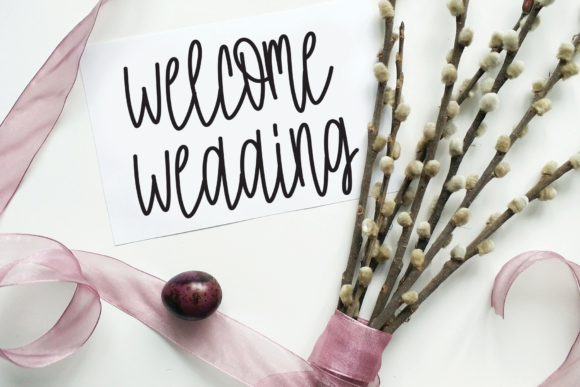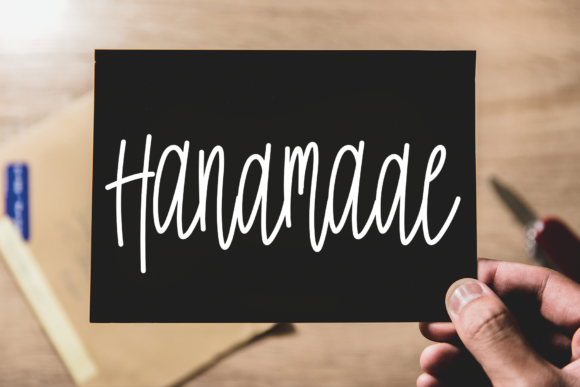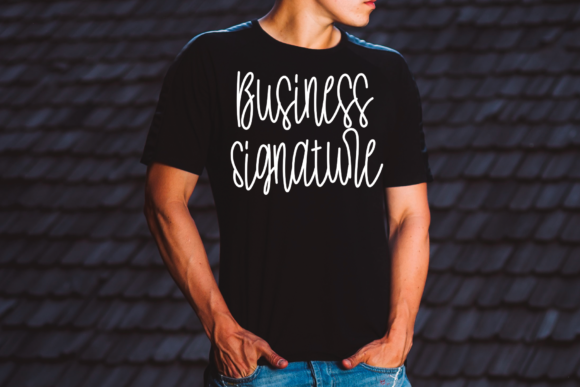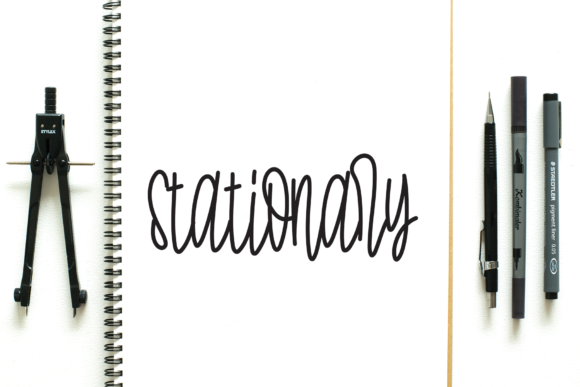
Introducing Handcraft Vintage Font: A Timeless Choice for Creative Projects
Are you a designer or crafter looking for a font that adds a personal touch to your creative projects? Look no further than Handcraft Vintage Font, a beautiful and slim handwritten font that exudes authenticity and natural charm. In this article, we’ll explore the features and benefits of Handcraft Vintage Font, and why it’s an excellent choice for anyone seeking to add a unique and vintage flair to their work.
The Charm of Handcraft Vintage Font
Handcraft Vintage Font is a stunning example of a handwritten font that looks like it was plucked straight from a bygone era. Its slim and elegant lines evoke a sense of nostalgia and sophistication, making it perfect for projects that require a touch of classic charm. Whether you’re working on a logo, branding materials, or a craft project, Handcraft Vintage Font is sure to impress with its authentic and natural appearance.
What Makes Handcraft Vintage Font So Special?
So, what sets Handcraft Vintage Font apart from other fonts? Here are just a few reasons why this font is a cut above the rest:
- Authentic look and feel: Handcraft Vintage Font has been carefully crafted to mimic the look and feel of vintage handwriting. Its imperfections and quirks add to its charm, making it look like it was written by hand.
- Slim and elegant lines: The font’s slim lines make it perfect for use in a variety of applications, from logos and headings to body text and crafts.
- Highly versatile: Handcraft Vintage Font is suitable for a wide range of creative projects, from stationery and invitations to branding and advertising materials.
- Easy to read: Despite its vintage charm, Handcraft Vintage Font is surprisingly easy to read, making it perfect for use in body text and other applications where legibility is key.
Using Handcraft Vintage Font in Your Creative Projects
So, how can you use Handcraft Vintage Font in your creative projects? Here are a few ideas to get you started:
- Stationery and invitations: Add a touch of vintage charm to your stationery and invitations with Handcraft Vintage Font. It’s perfect for weddings, birthdays, and other special occasions.
- Branding and logos: Use Handcraft Vintage Font to create a unique and memorable logo for your business or brand. Its slim lines and elegant appearance make it perfect for use in a variety of applications.
- Crafts and DIY projects: Handcraft Vintage Font is a great choice for crafters and DIY enthusiasts. Use it to add a personal touch to your projects, from scrapbooking and journaling to card making and more.
Tips for Getting the Most Out of Handcraft Vintage Font
To get the most out of Handcraft Vintage Font, here are a few tips to keep in mind:
- Experiment with different sizes and colors: Handcraft Vintage Font looks great in a variety of sizes and colors. Experiment with different combinations to find the one that works best for your project.
- Pair it with other fonts: Handcraft Vintage Font pairs well with a variety of other fonts. Try pairing it with a bold font for a striking contrast, or with a script font for a more elegant look.
- Use it consistently: To create a cohesive look, use Handcraft Vintage Font consistently throughout your project. This will help to create a strong brand identity and make your work stand out.
In conclusion, Handcraft Vintage Font is a beautiful and versatile font that’s perfect for designers and crafters looking to add a personal touch to their creative projects. Its authentic and natural appearance, slim lines, and high legibility make it an excellent choice for a wide range of applications. Whether you’re working on a logo, branding materials, or a craft project, Handcraft Vintage Font is sure to impress. So why not give it a try and see the difference it can make in your work?